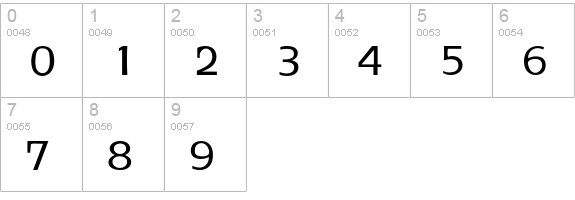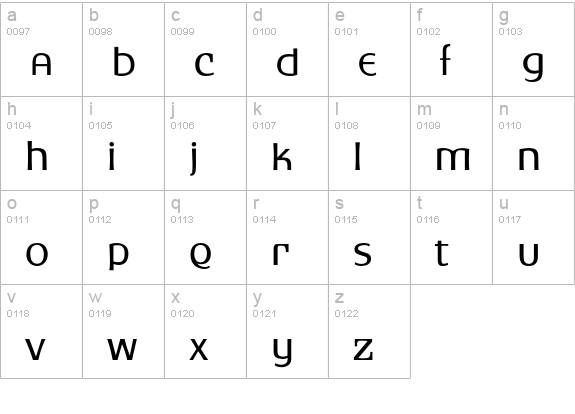
Sirius Font Details
Sirius font is a beautifully designed typeface that exudes elegance and sophistication. With its sleek lines and graceful curves, it is perfect for creating stunning and professional designs. Whether you are working on a logo, a website, or a print project, Sirius font will add a touch of class to your work. What sets Sirius font apart is not only its impeccable design but also its accessibility. This font is available for free, allowing designers of all levels to incorporate it into their projects without any financial burden. Simply visit FontsMarket.com, and you can easily download Sirius font and start using it right away. The versatility of Sirius font is another reason why it is a must-have for any designer. Its clean and legible characters make it suitable for a wide range of applications, from headlines and body text to signage and branding. It seamlessly blends modern aesthetics with timeless appeal, making it a versatile choice for any design project. The attention to detail in Sirius font is truly remarkable. Each letter has been carefully crafted to ensure optimal legibility, even at small sizes. The generous spacing between characters ensures readability, while the subtle curves and angles add a touch of sophistication. Whether you are a professional designer or a novice, Sirius font is a valuable addition to your font library. Its ability to elevate any design, combined with its free availability at FontsMarket.com, makes it an unbeatable choice. Download Sirius font today and unlock endless possibilities for your creative projects.